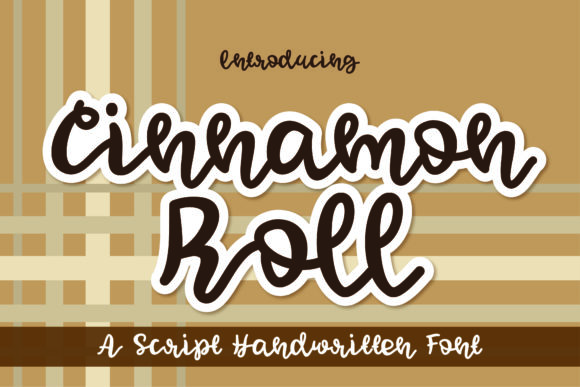
About Cinnamon Roll Font
Cinnamon Roll is a lovely and delicate script font that exudes elegance and class. This font was particularly crafted for those who need a beautiful and refreshing look to their designs.